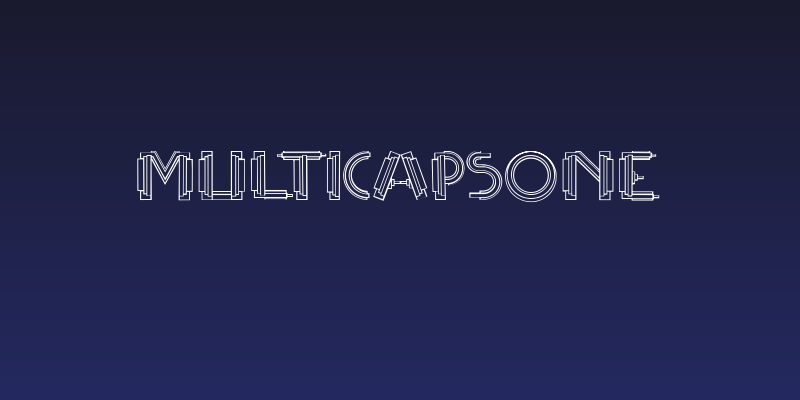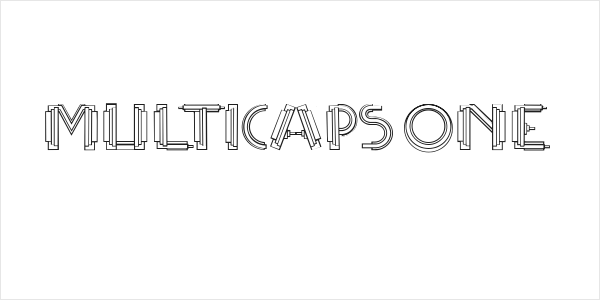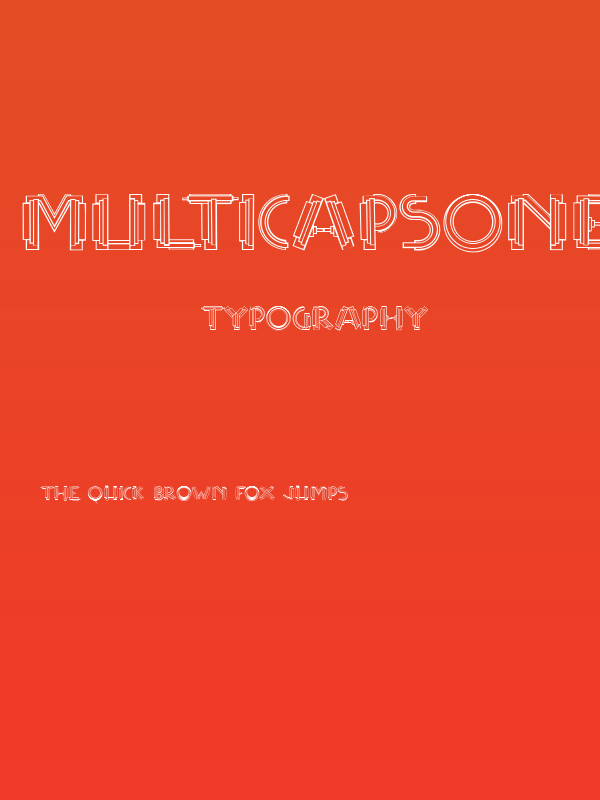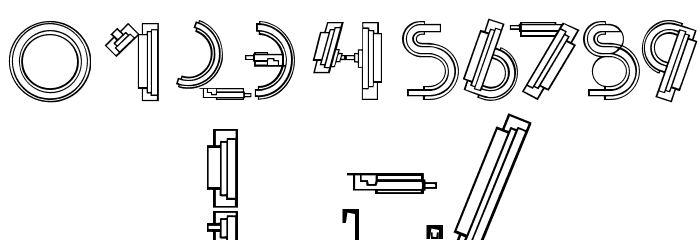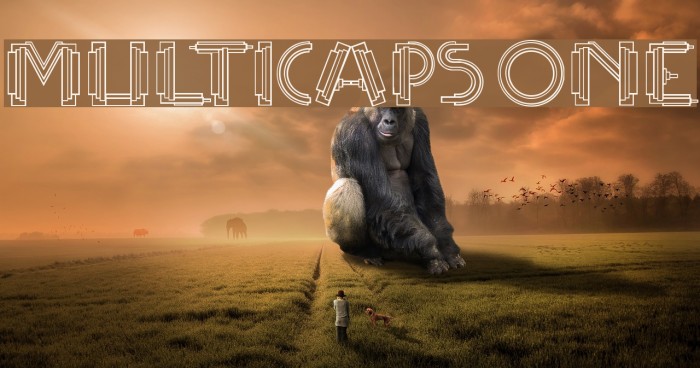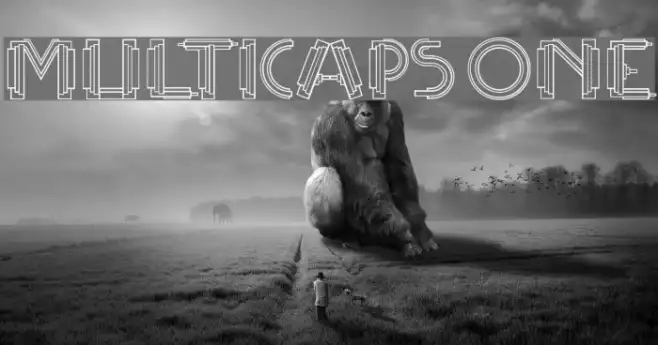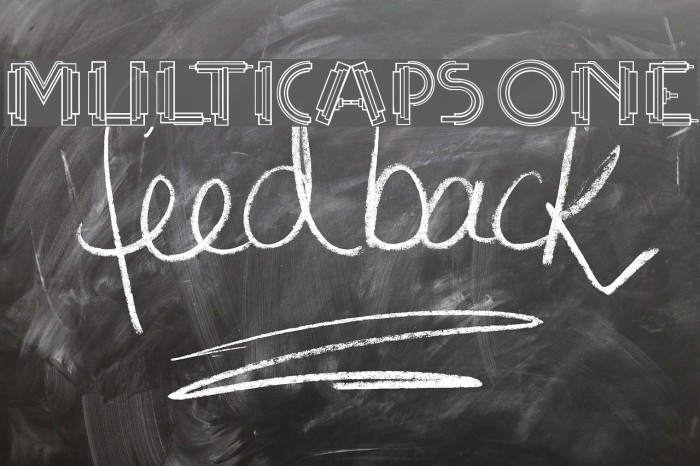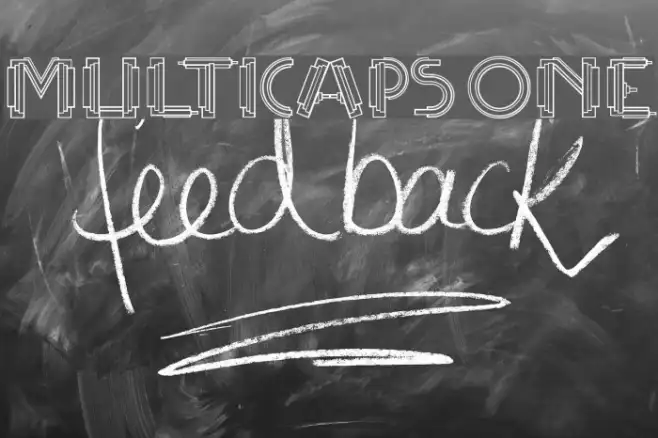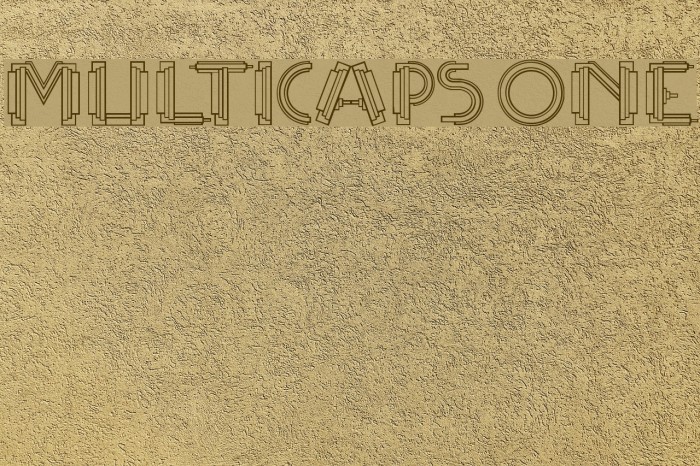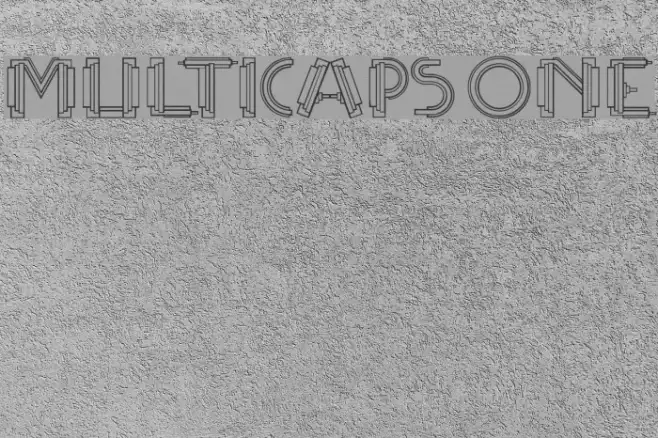
MultiCapsOne Font
MultiCapsOne Description
This font features a unique, layered design with a three-dimensional effect, giving it a bold and eye-catching appearance. The characters are constructed with multiple overlapping lines, creating a sense of depth and complexity. The geometric shapes and clean lines contribute to a modern and futuristic aesthetic. Each letter and number is distinct, with sharp angles and precise curves that enhance its visual impact. The font's intricate design makes it suitable for projects that require a standout, decorative typeface.
| Proposed Projects | Ideal for posters, logos, and branding materials where a striking, modern look is desired. |